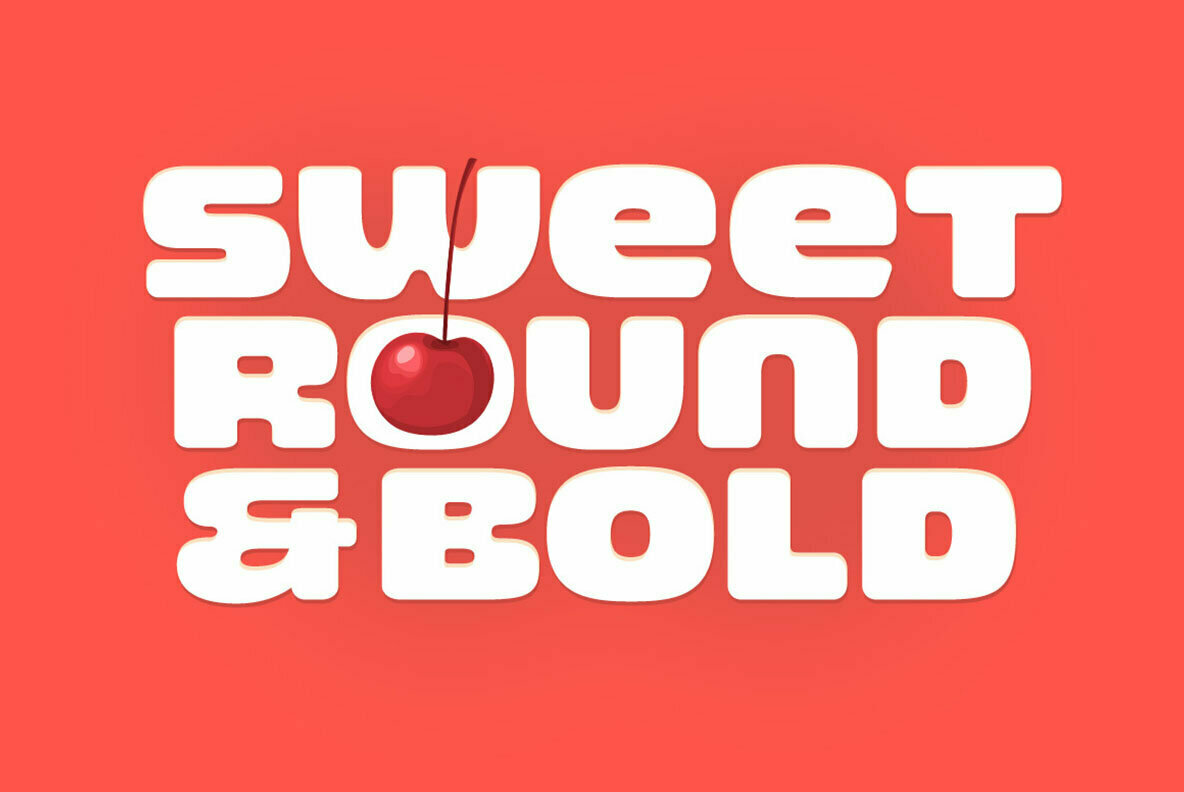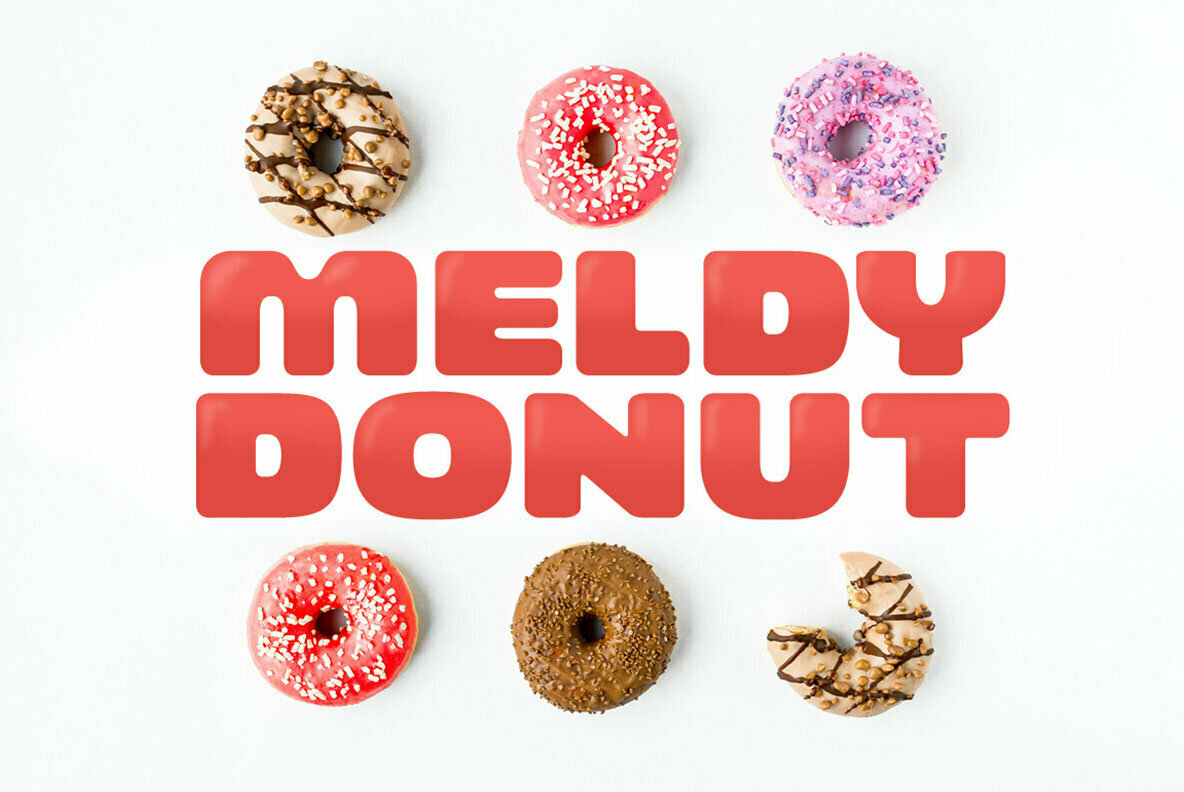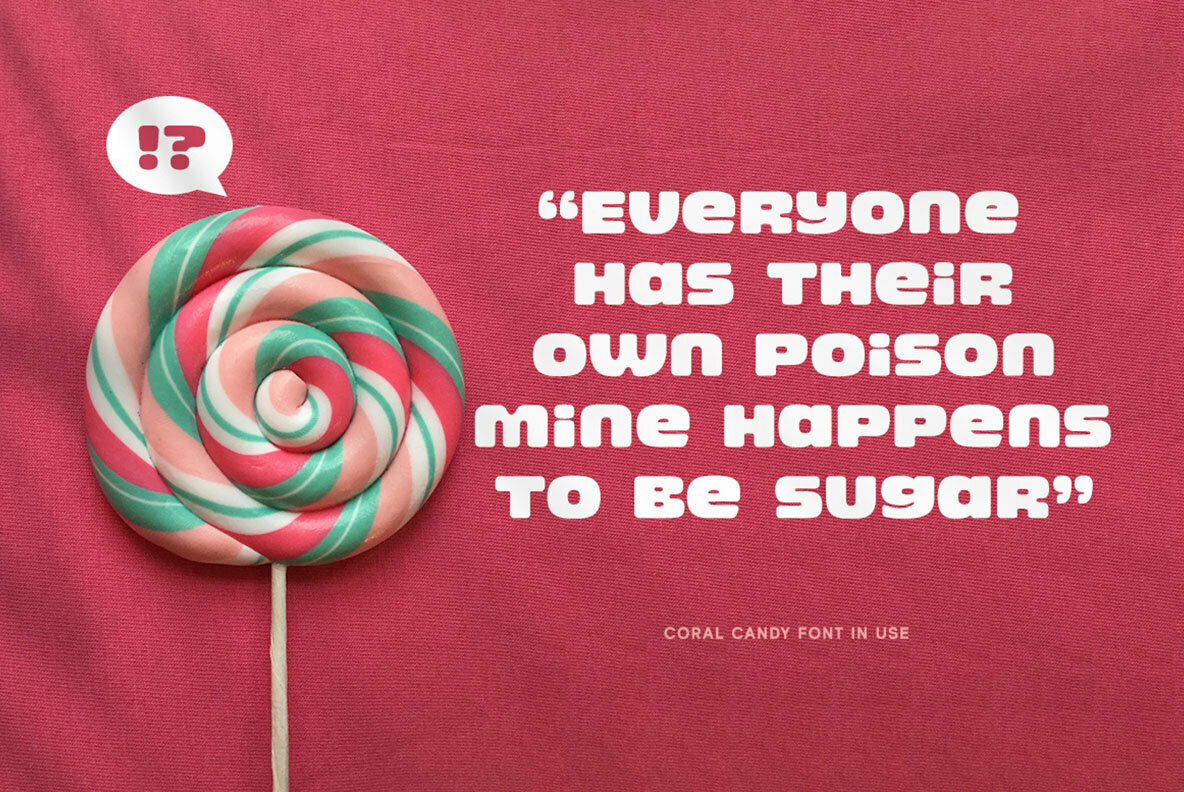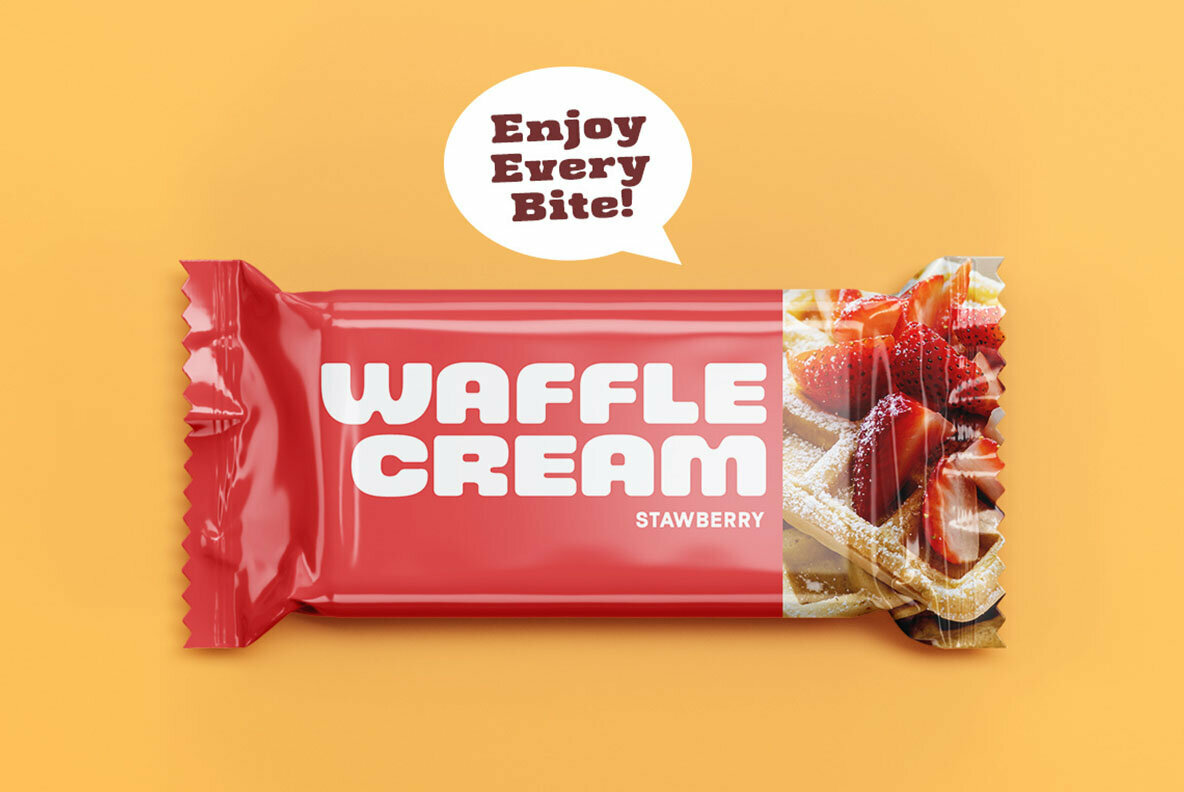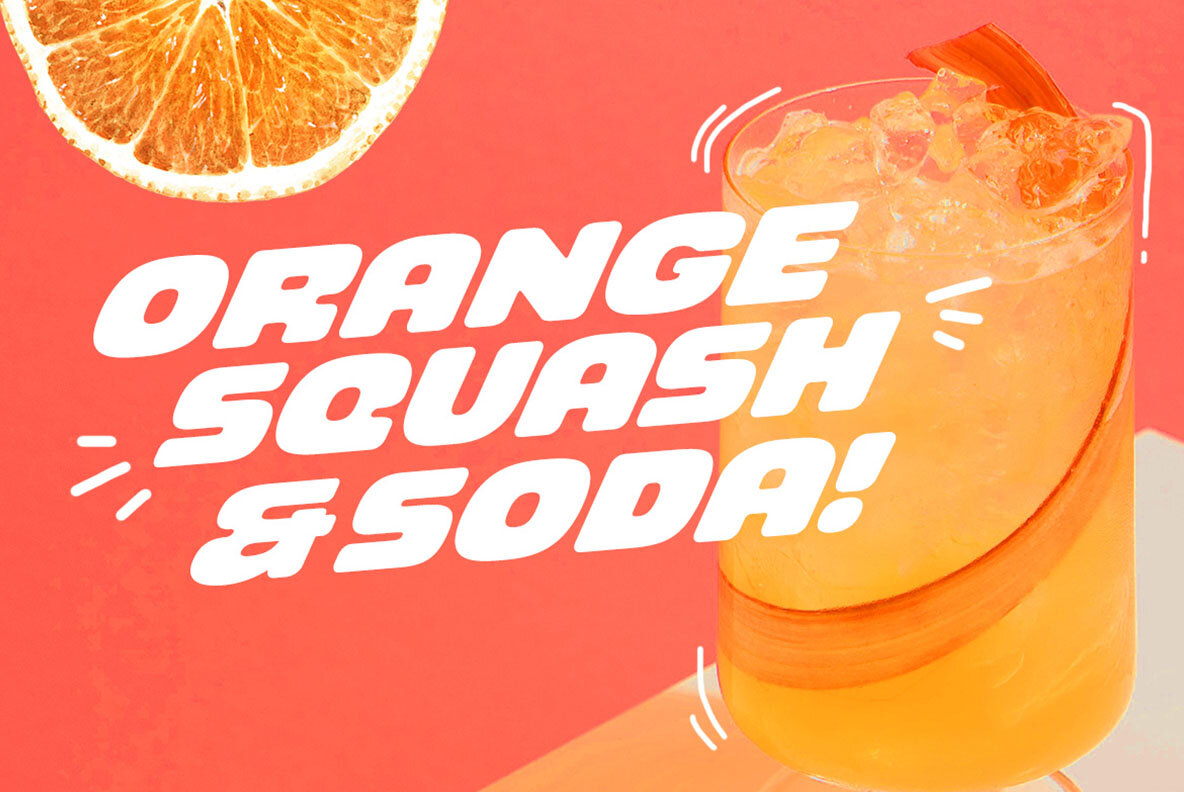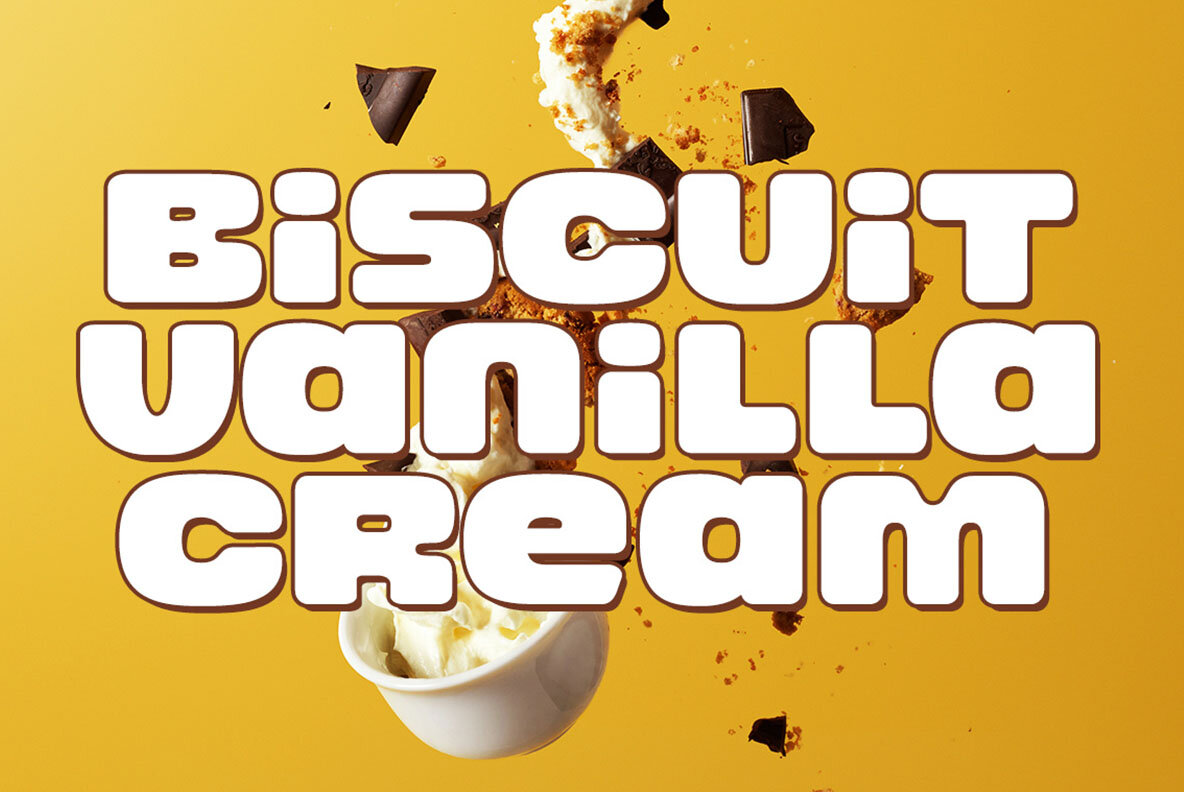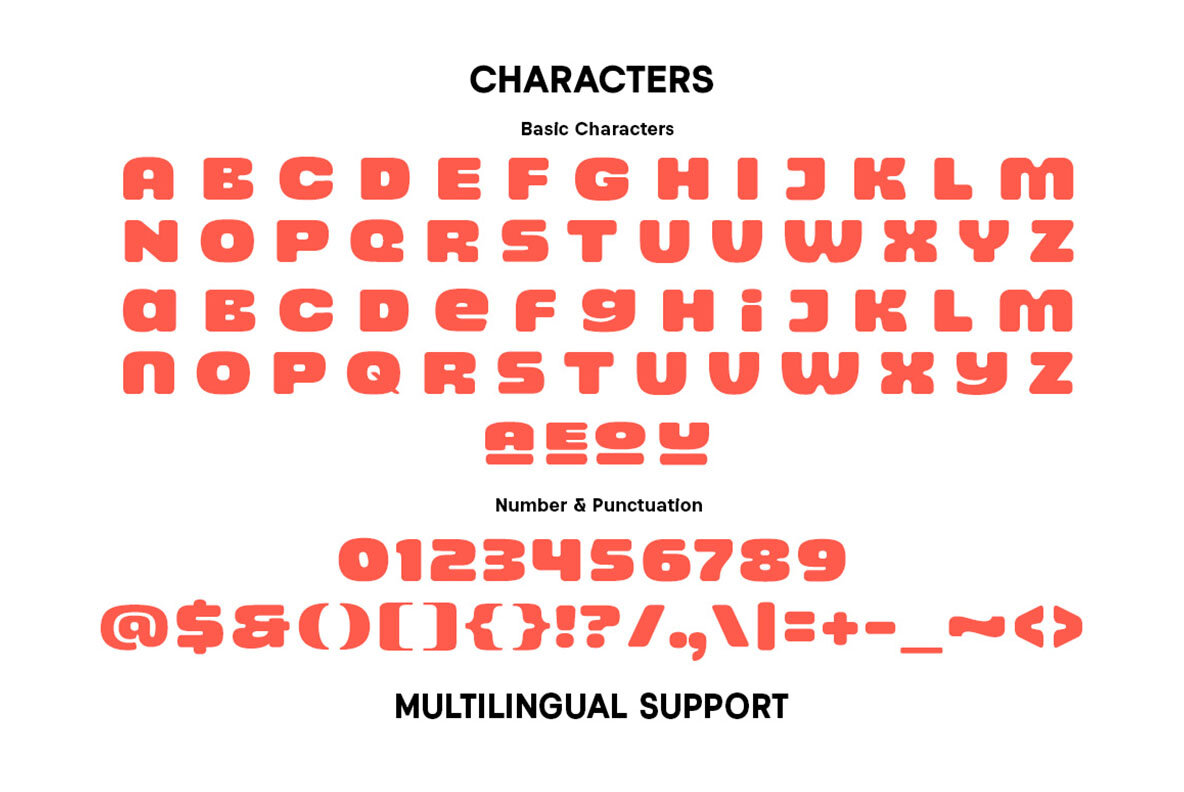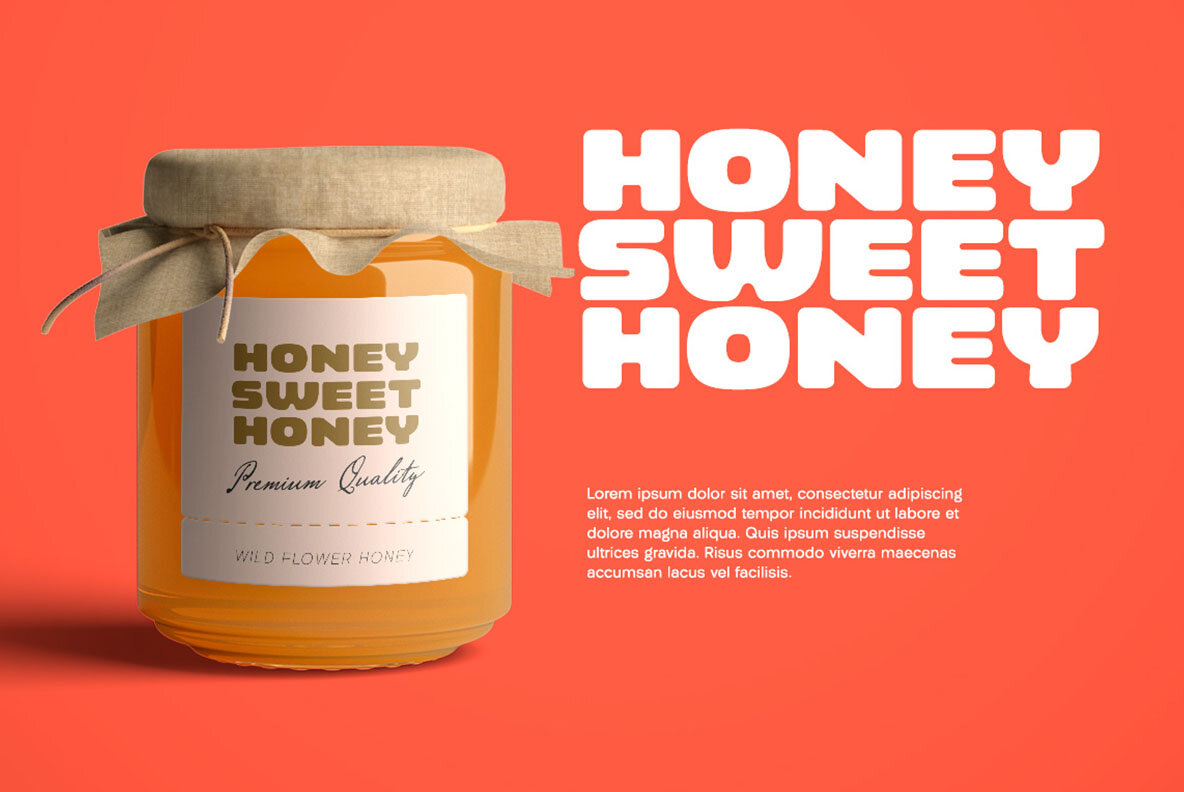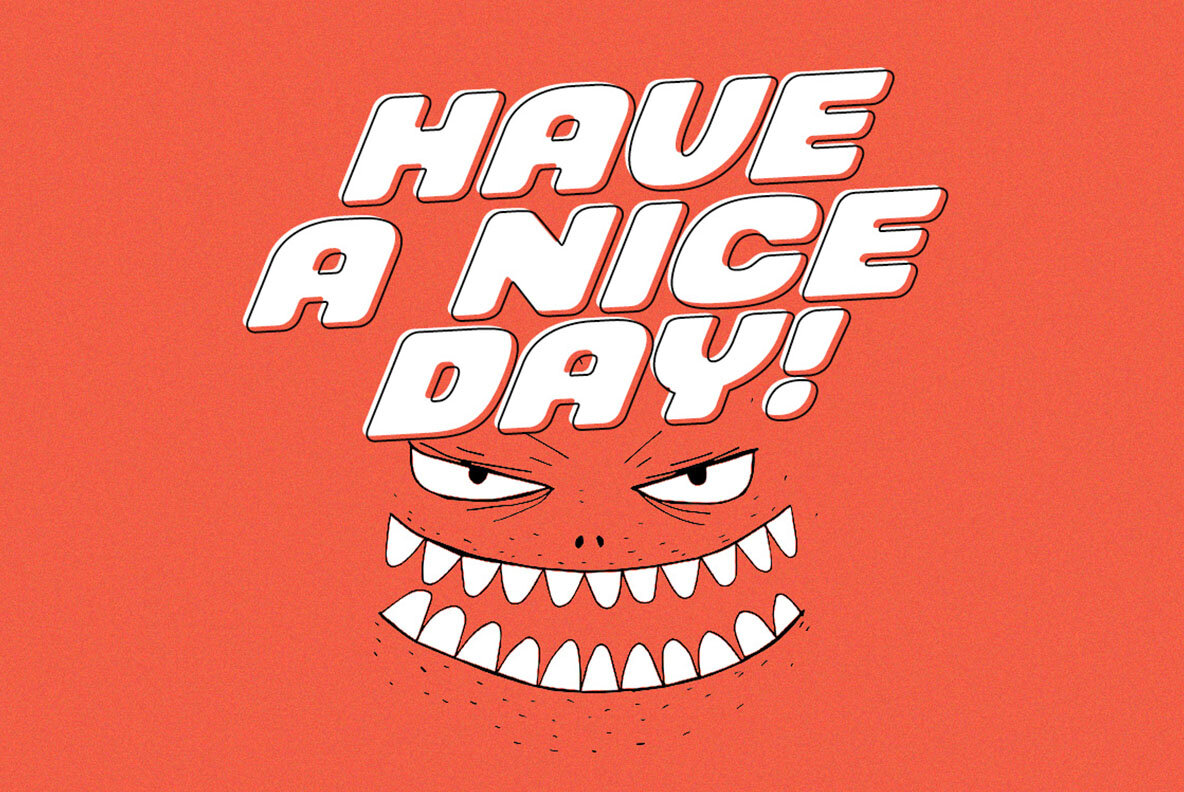
Coral Candy: Bold Font with Playful Appeal
Coral Candy by Letterhend Studio is a captivating typeface that embodies a fun and lively aesthetic. It is well-suited for projects requiring a standout presence, especially within child-oriented themes or cartoon designs. Beyond playful applications, Coral Candy's bold character seamlessly extends to various formal contexts such as invitations, book covers, and logos.
• Numbers and Punctuation – Ensures complete typographic functionality.
• Multilingual Support – Accommodates diverse language requirements.
• Ligatures – Enhances text cohesion and visual interest.